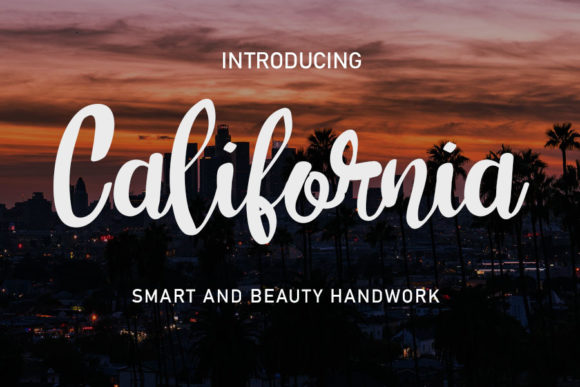
The Magical California Font: Elevate Your Designs with Elegance
I’ll never forget the moment I stumbled upon the California Font while working on a branding project for a luxury client. I had spent hours scouring the internet for the perfect script font, but nothing seemed quite right. That was until I saw California Font – its elegant strokes and flowing curves instantly captivated me. It was as if the font was made for my project! In this article, I’ll share my experience with California Font, its features, and how to make the most of it in your designs.
An Honest Review of California Font
So, what makes California Font so special? Let’s dive into the good stuff and a few quirks I’ve discovered.
- ✨ Elegant and sophisticated design that’s perfect for luxury brands
- ✅ Highly versatile, suitable for a wide range of creative projects
- 💫 Beautifully crafted with attention to detail, making it a true piece of art
- 👍 Easy to read, even in smaller font sizes
While California Font is an excellent choice, there are a few things to keep in mind:
- ⚠️ May not be the best fit for very casual or playful designs, as it leans more towards elegance and sophistication
- 🤔 Some users may find the font a bit too ornate for certain projects
- Experiment with OpenType features, such as ligatures and stylistic alternates, to add more flair to your text
- Explore the font’s glyphs and OpenType features to add more visual interest to your design
The Story Behind California Font
California Font was crafted with love and attention to detail by a team of skilled designers. The font’s creator was inspired by the beauty of California’s coastline, from the sun-kissed beaches to the rolling hills. The result is a font that exudes elegance, sophistication, and a touch of magic.
Q: What type of projects is California Font best suited for?
A: California Font is highly versatile and can be used for a wide range of projects, from luxury branding and packaging to wedding invitations and DIY crafts.